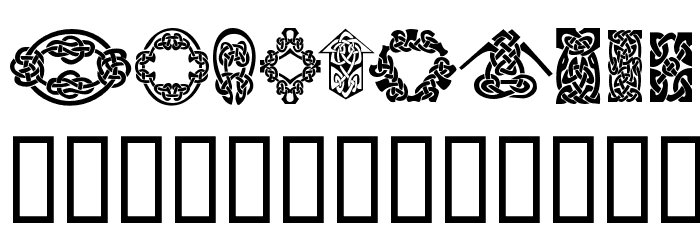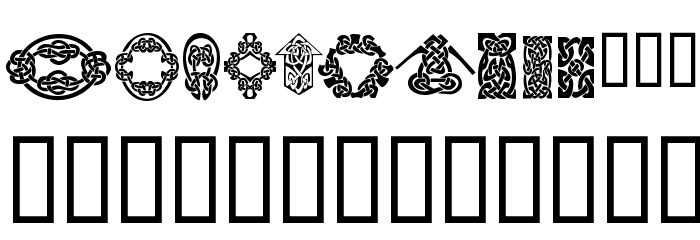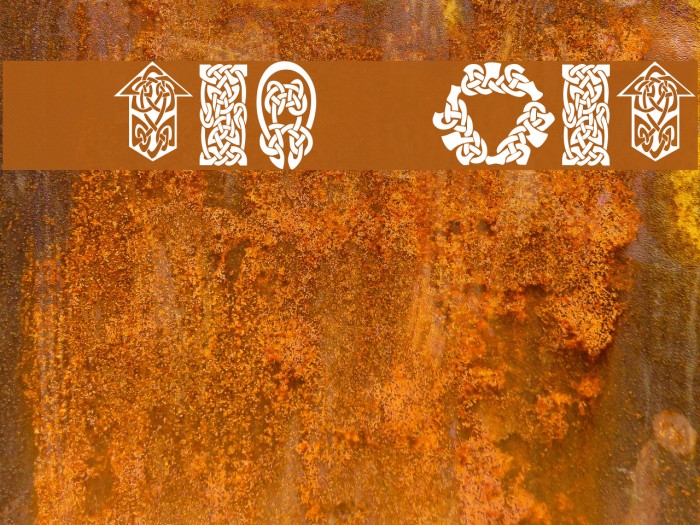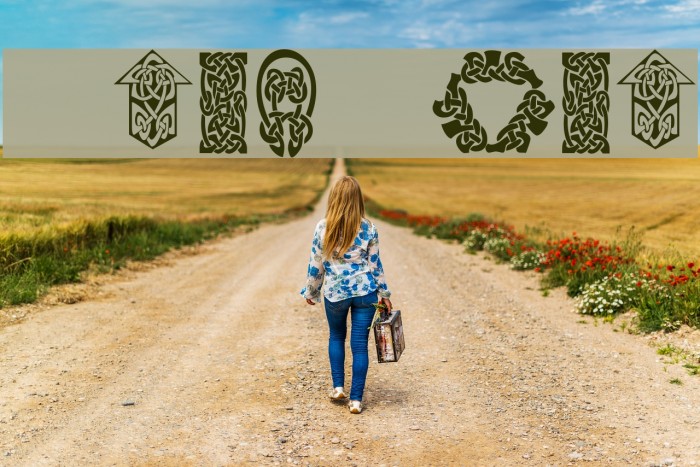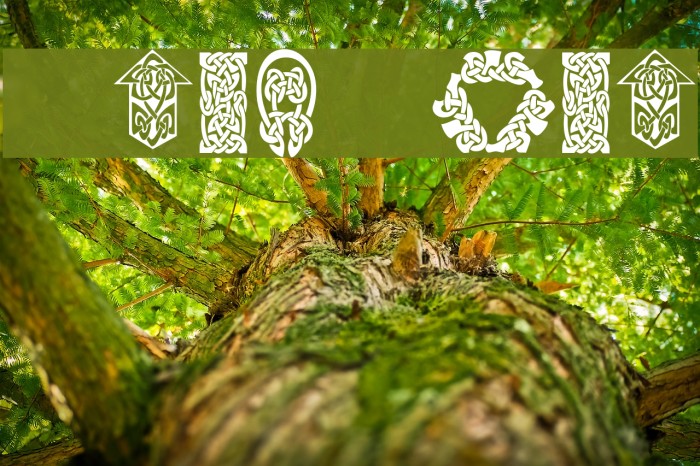
KR Keltic Five Font
This font features intricate Celtic knot designs, each character is a unique pattern that resembles traditional Celtic art. The letters are highly decorative, with interwoven lines creating complex shapes. The style is reminiscent of ancient manuscripts and stone carvings, offering a historical and cultural aesthetic. The font is primarily decorative, with each character serving as a piece of art rather than a standard letterform. The detailed patterns make it suitable for projects that require a touch of Celtic heritage or a mystical, ancient feel.
Intricate Celtic knot designs form each character, offering a decorative and historical aesthetic.
- Proposed Projects: Ideal for themed invitations, cultural event posters, historical displays, or any project seeking a Celtic or mystical theme.
- Use Case: Logos, Headlines, Decorative elements